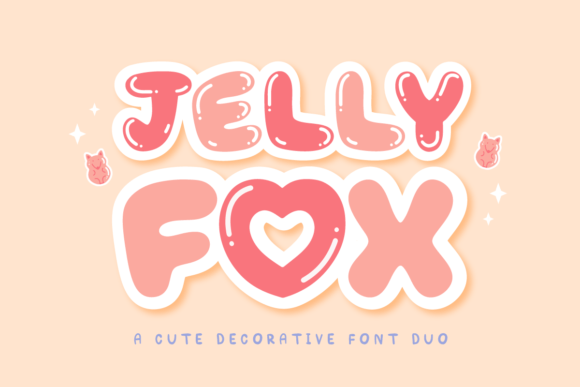
Introducing the enchanting Jelly Fox Font, a delightful addition to your font collection that will breathe new life into your designs. Created by the talented team at Kanink Type Studio, this decorative font family is perfect for adding a touch of magic to your Christmas-themed projects.
The Jelly Fox Duo Decorative Font offers not one, but two captivating variations: Jelly Fox Regular and Jelly Fox Highlight. These styles work harmoniously together, allowing you to create stunning typographic masterpieces with ease.
The Jelly Fox Regular style exudes elegance and sophistication, with its clean lines and timeless appeal. It is the perfect choice for adding a touch of class to your holiday greetings, invitations, and branding materials. Let your words shimmer and shine with this versatile font style.
For those seeking a more playful and whimsical vibe, the Jelly Fox Highlight style is the perfect fit. With its slightly rounded letters and friendly appearance, it injects a sense of joy and wonder into your designs. Add a dash of whimsy to your Christmas cards, posters, and social media posts, and watch as they captivate your audience.
Both styles of the Jelly Fox Duo Decorative Font are carefully crafted to ensure maximum legibility, even at smaller sizes. This means you can confidently use them in a variety of projects, from print to digital, without compromising on clarity.
Whether you're a seasoned designer or a holiday enthusiast looking to add a special touch to your creations, the Jelly Fox Font is a must-have. Its versatility, elegance, and playful charm make it the perfect companion for all your Christmas-inspired designs.